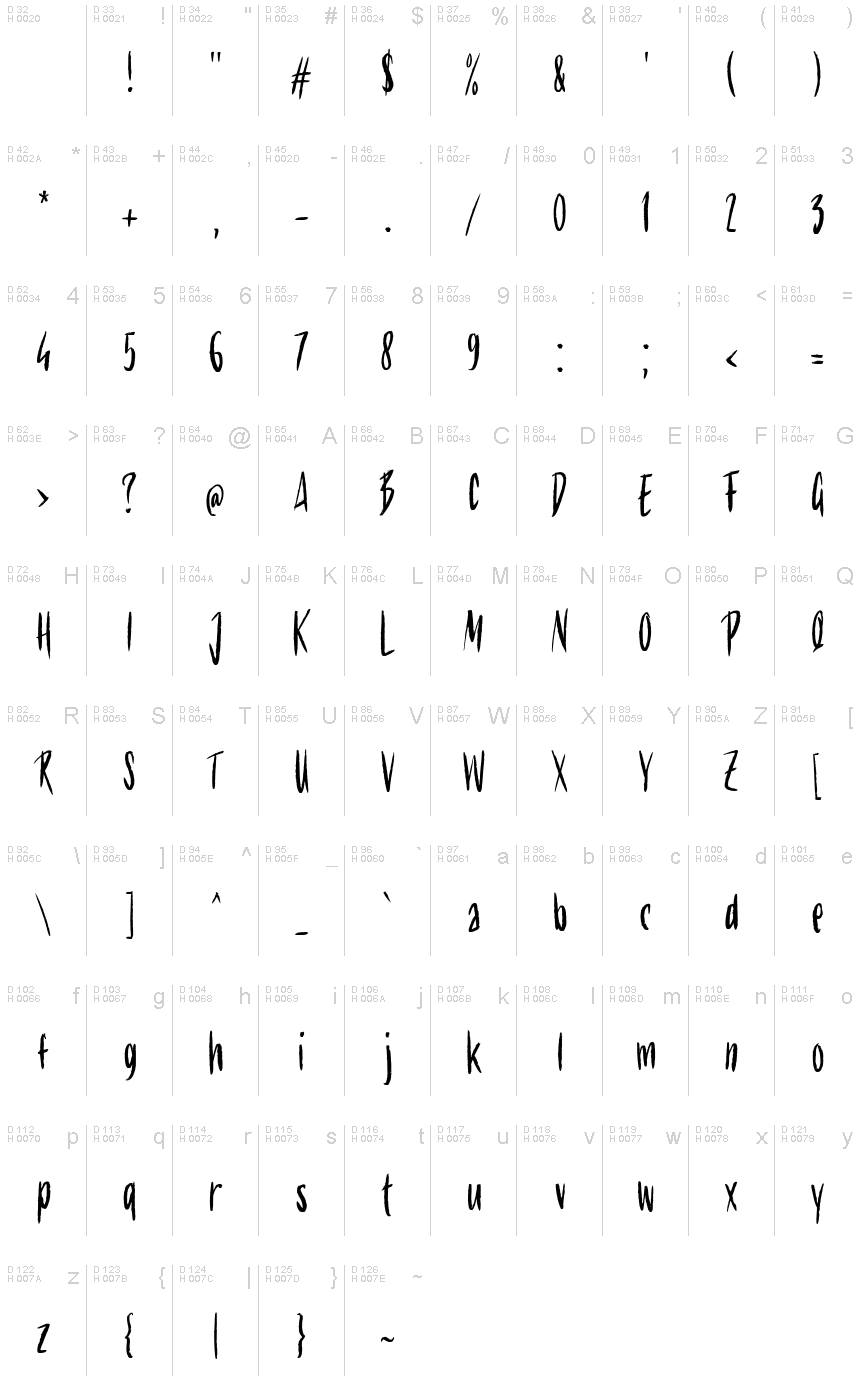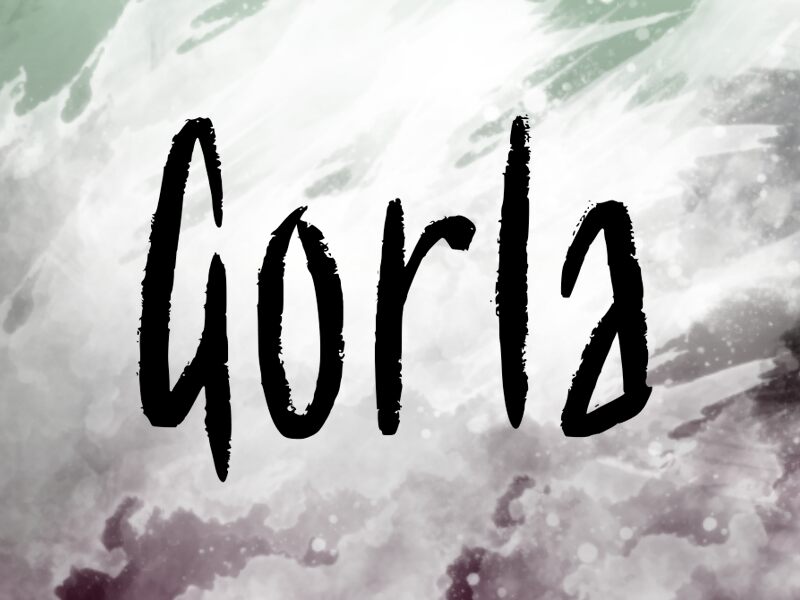
Gorla
Gorla font, designed by wep, epitomizes a bold, brush-inspired aesthetic that resonates with an edgy and captivating appeal. Its condensed form creates an impactful presence, making each character feel dynamic and urgent. The brush-like strokes give it a raw, artistic quality that conjures images of movement and emotion, perfectly suited for projects that demand attention.
Visually striking yet unsettling, Gorla is ideal for horror-themed designs, promotional material for events like Halloween parties, or even captivating book covers in the thriller genre. Its unique characteristics allow it to stand out in any context where drama and intensity are key. Whether used in large displays or engaging headlines, Gorla delivers a powerful visual punch while maintaining an air of intrigue.